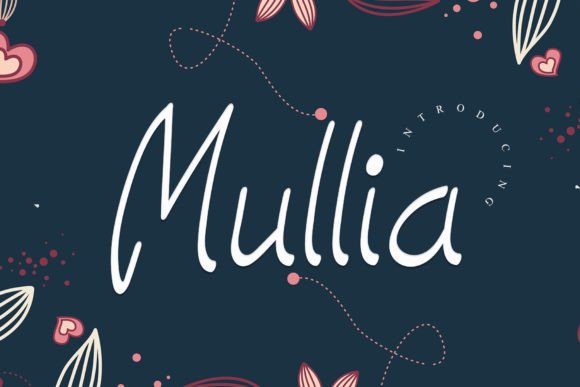
Dive into the world of Mullia, an extraordinary script font family that ignites creativity and transforms your designs into masterpieces. With its intricate ligatures and carefully crafted glyphs, Mullia is the ultimate choice for those seeking a distinctive handwritten touch.
Unleash your imagination and create designs that dance with elegance, from heartfelt wedding invitations that capture the essence of your love story to captivating greeting cards that leave a lasting impression. Let Mullia's fluidity guide you as you craft logos that stand out, business cards that command attention, and billboards that make a statement.
Mullia's versatility knows no bounds, effortlessly adapting to a symphony of design styles. Its natural, hand-made touch brings warmth and authenticity to your creations, making them resonate with your audience on a deeper level. Experience the magic of varied baselines, a symphony of curves and strokes that intertwine harmoniously to produce spectacular creations.
Picture your ideas springing to life, imbued with a sense of realism that captivates and inspires. With Mullia, your designs transcend the ordinary, becoming tangible expressions of your artistry. Embrace the power of Mullia and embark on a creative journey where imagination reigns supreme.